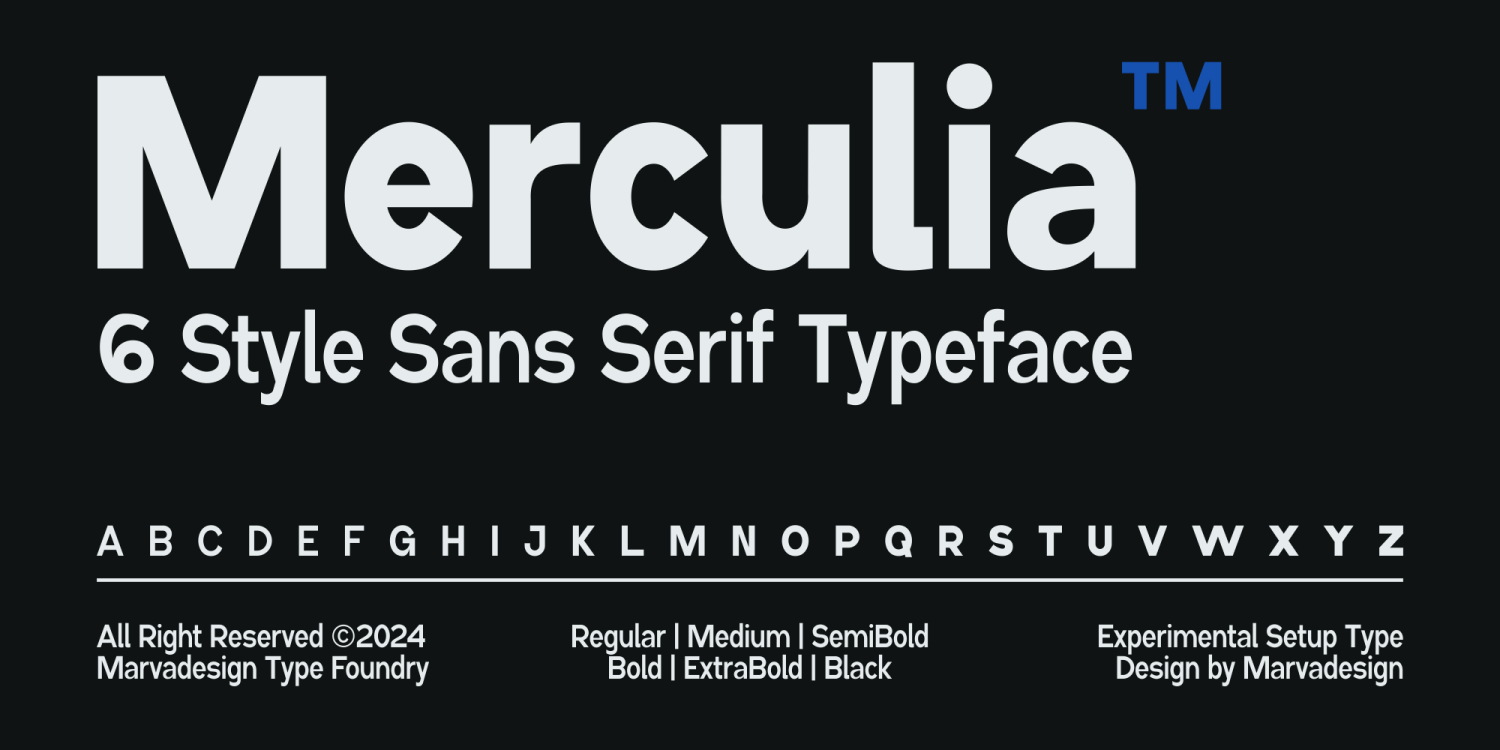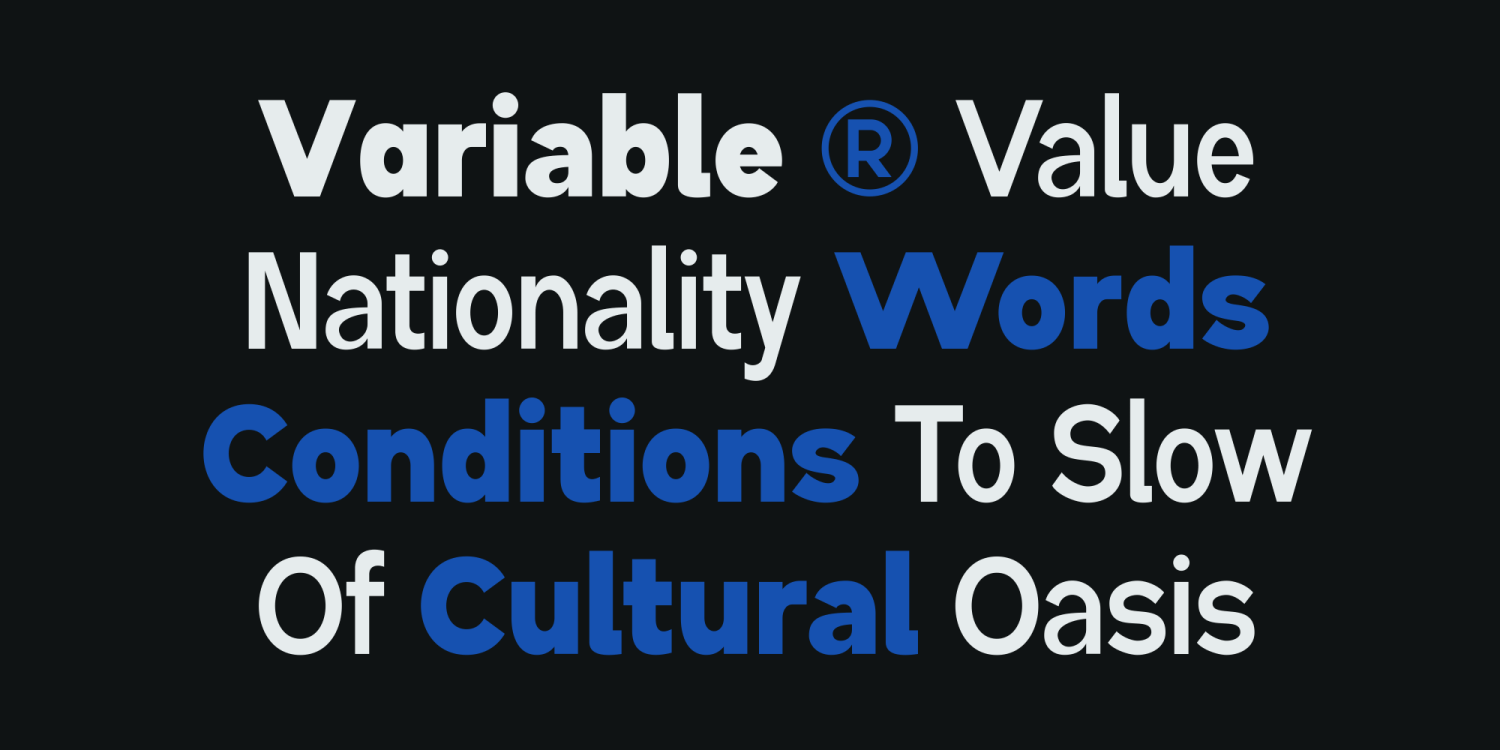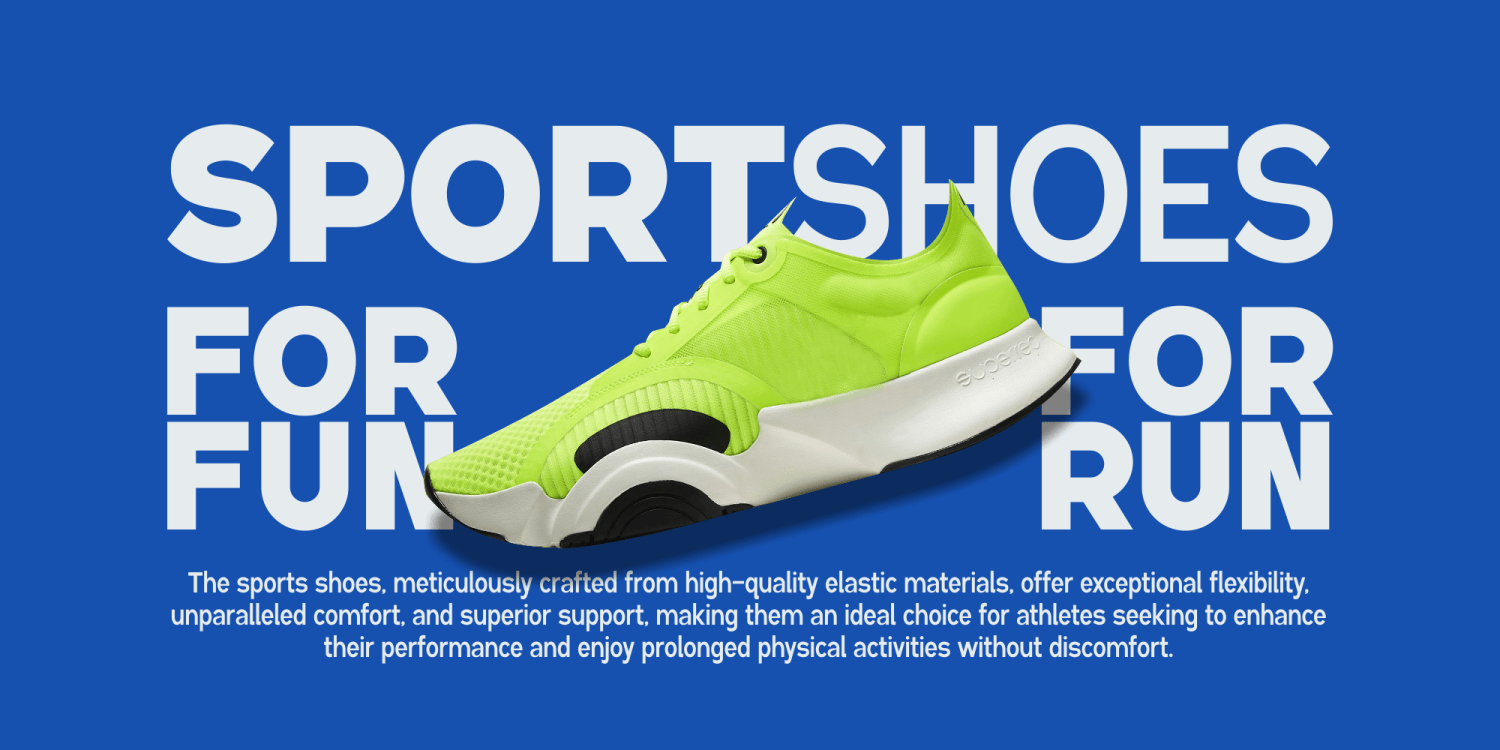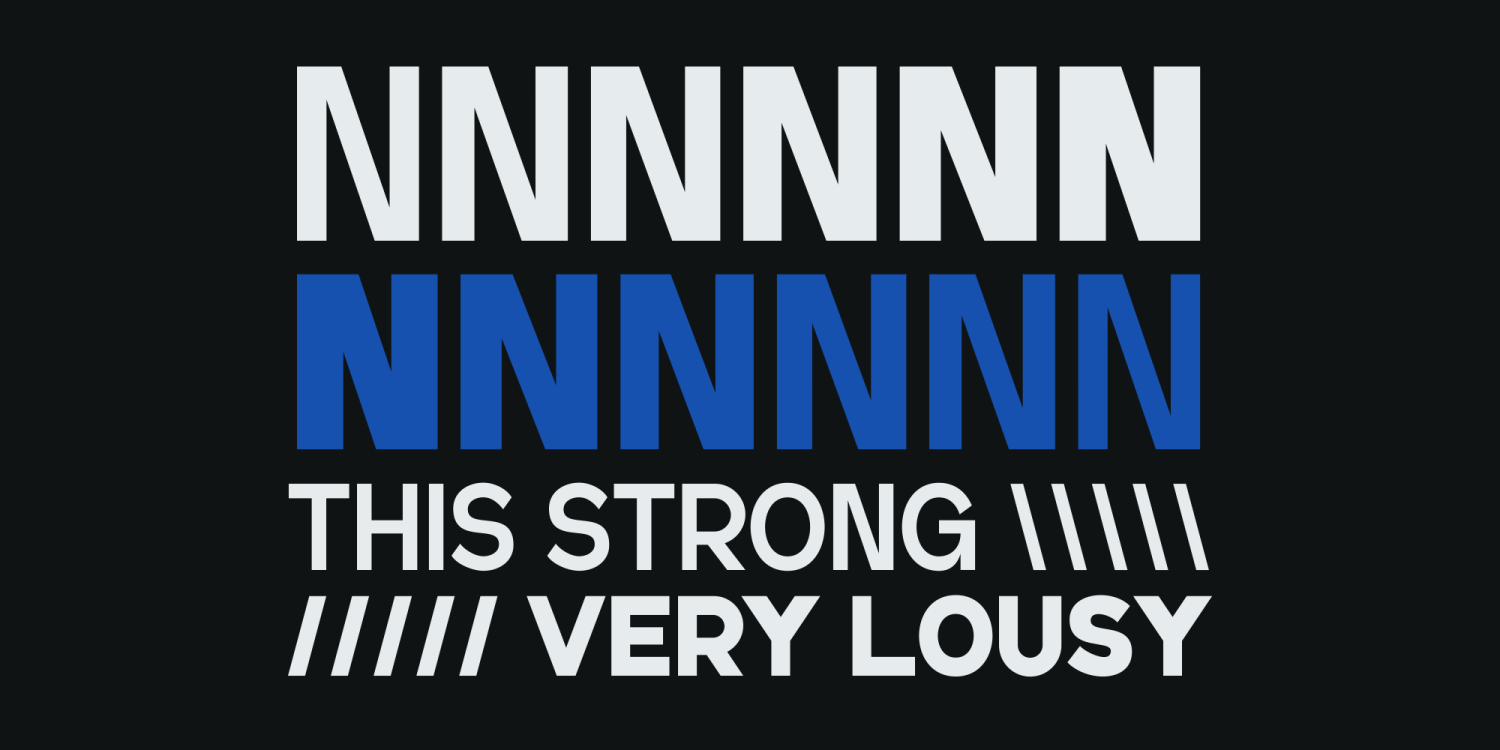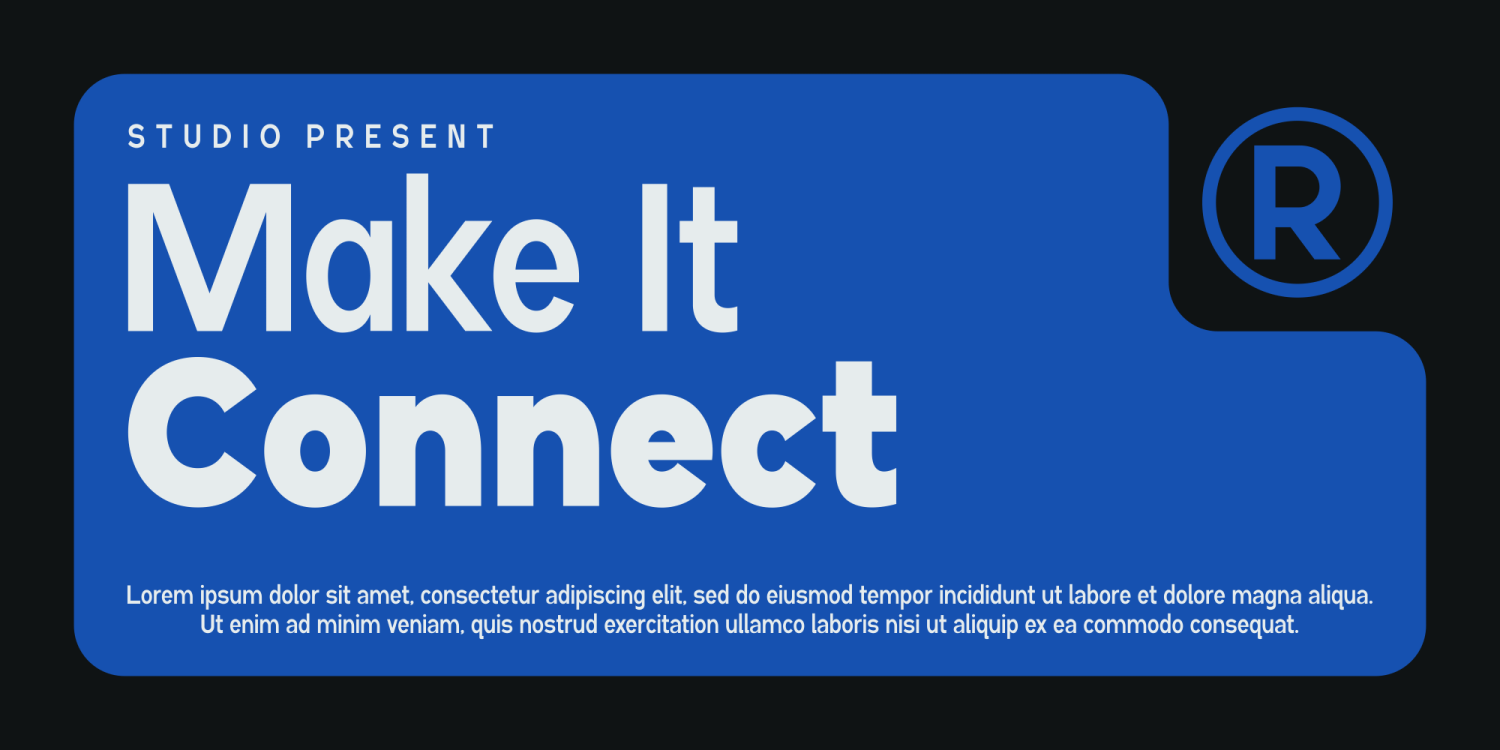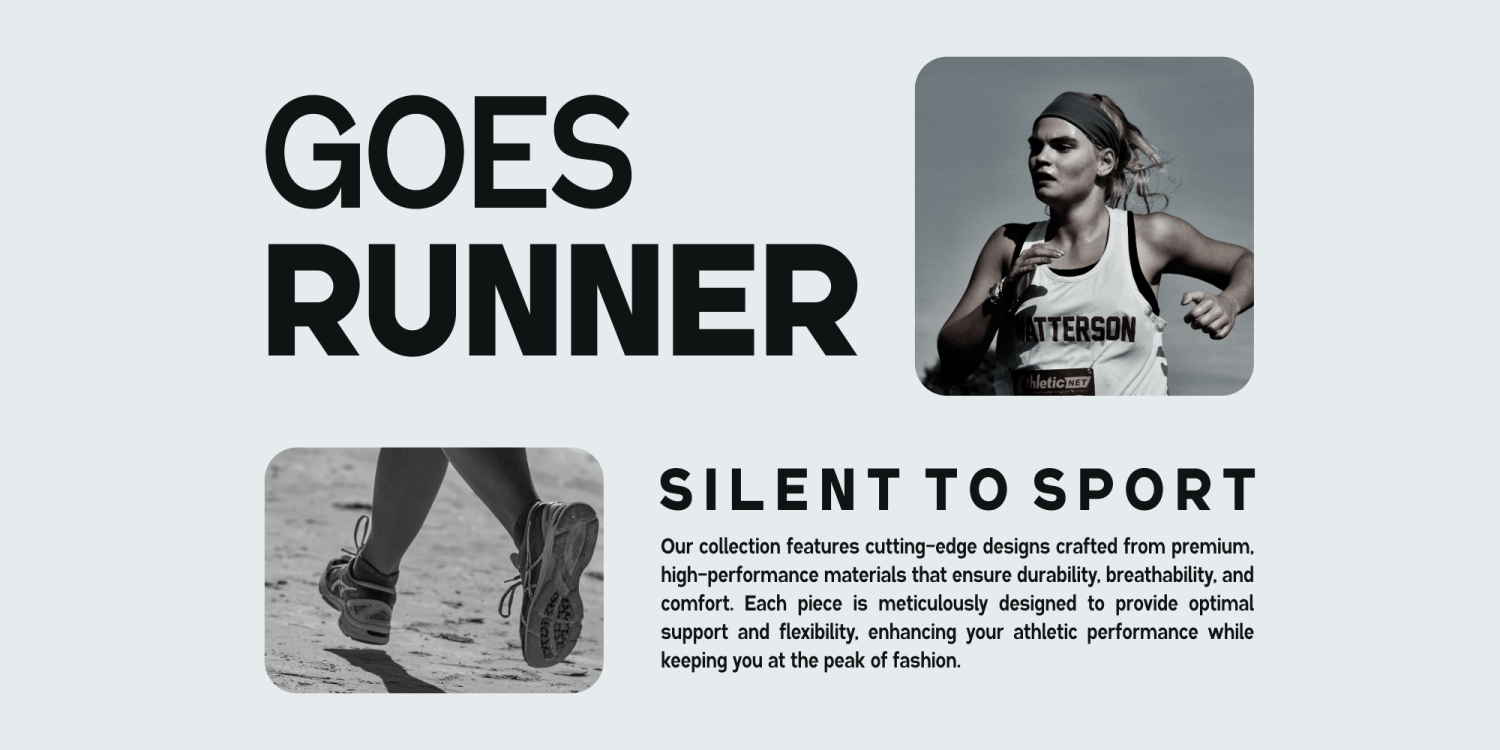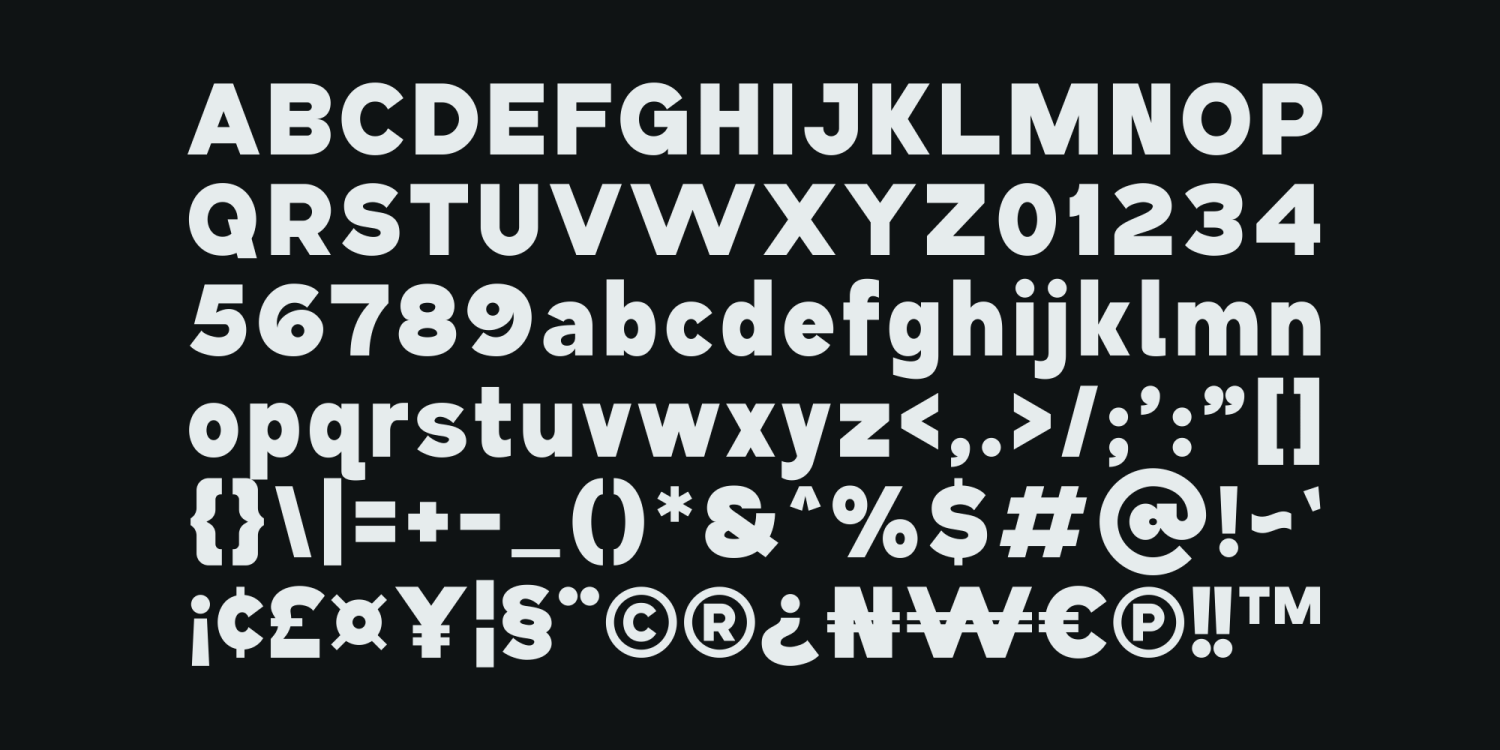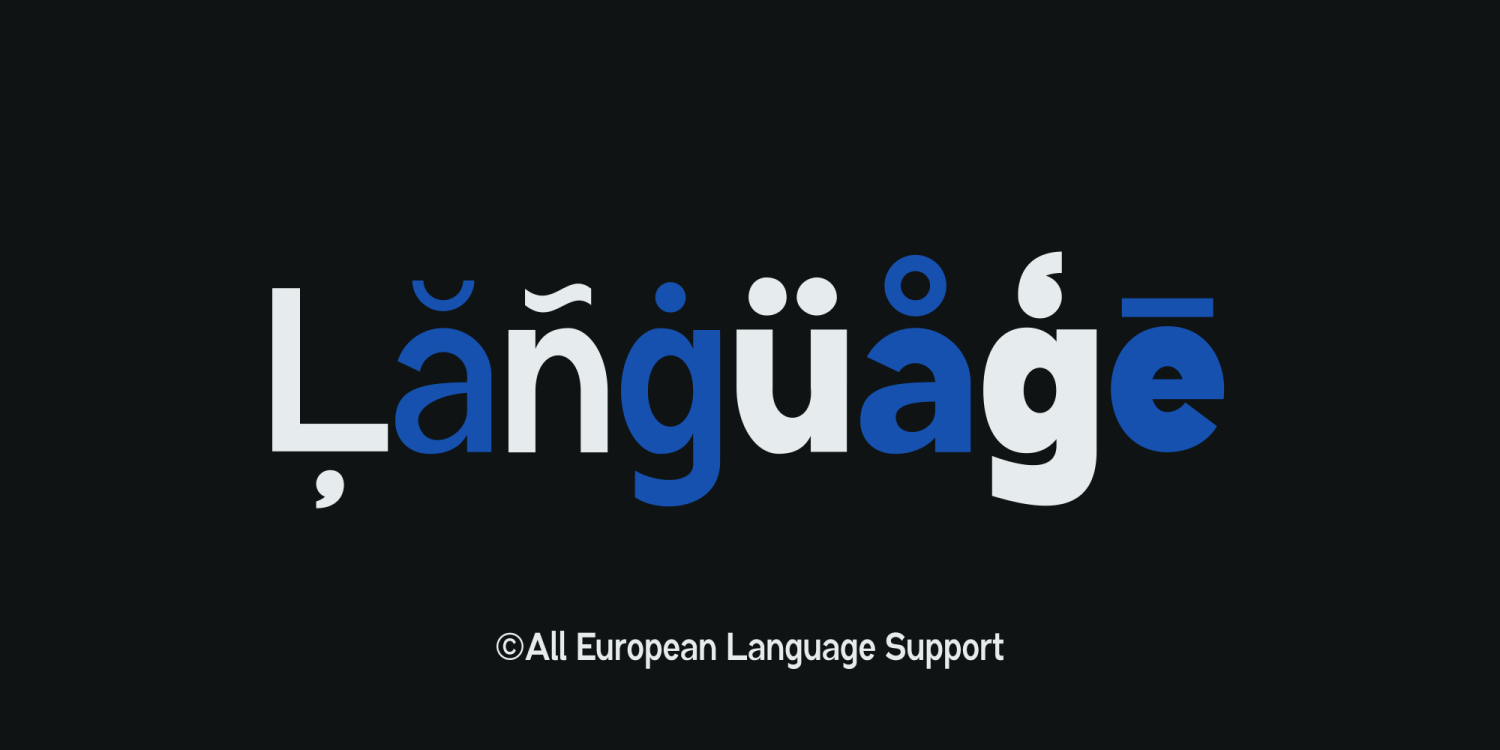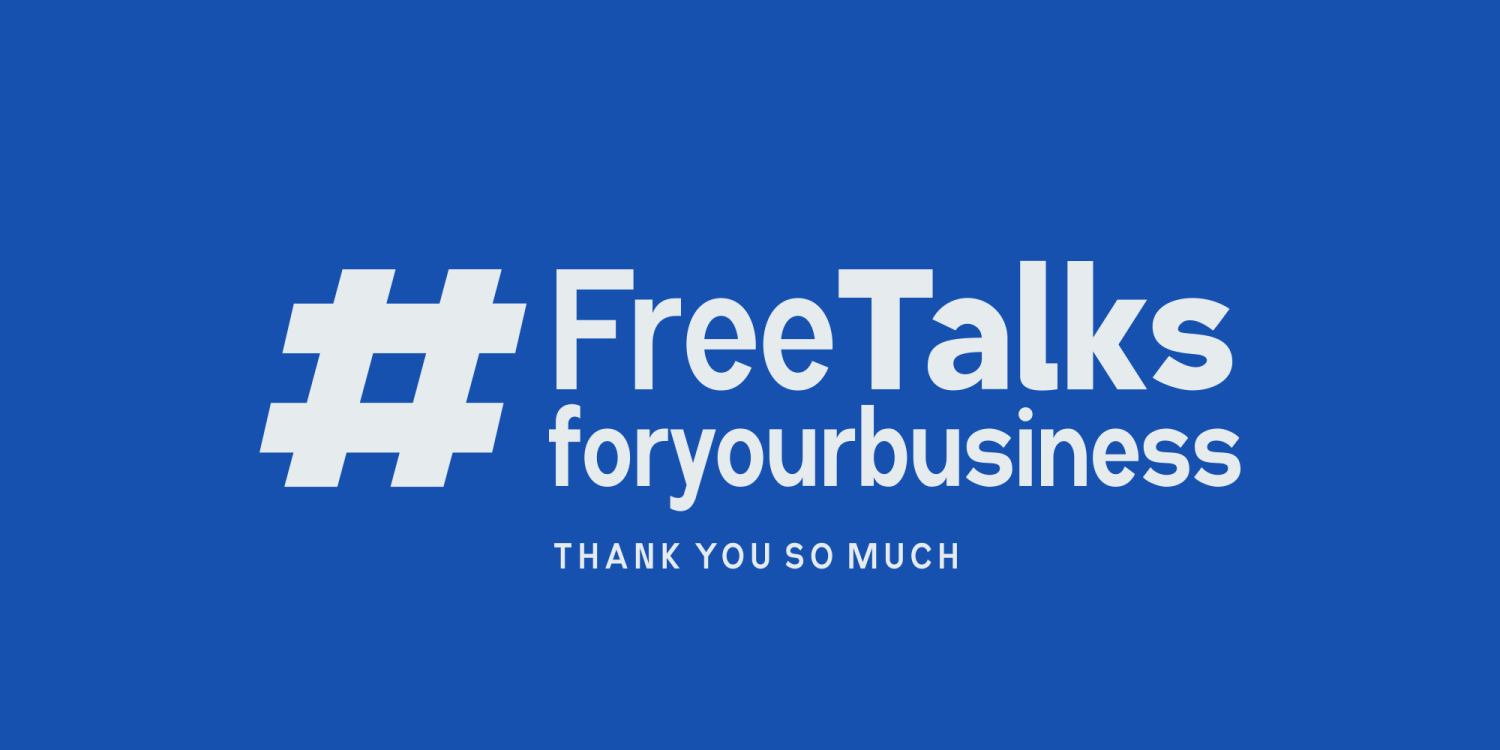
Merculia
Font Family by Marvadesign
Experience the clean, modern aesthetic of Merculia, a masterpiece in font design by Marvadesign. Contemporary and versatile, this sans serif font is a valuable addition to any graphic designer's arsenal, especially for marketing firms seeking new creative horizons. Merculia embodies six unique styles - Regular, Medium, Semibold, Bold, ExtraBold, and Black - to provide endless possibilities for impactful design.